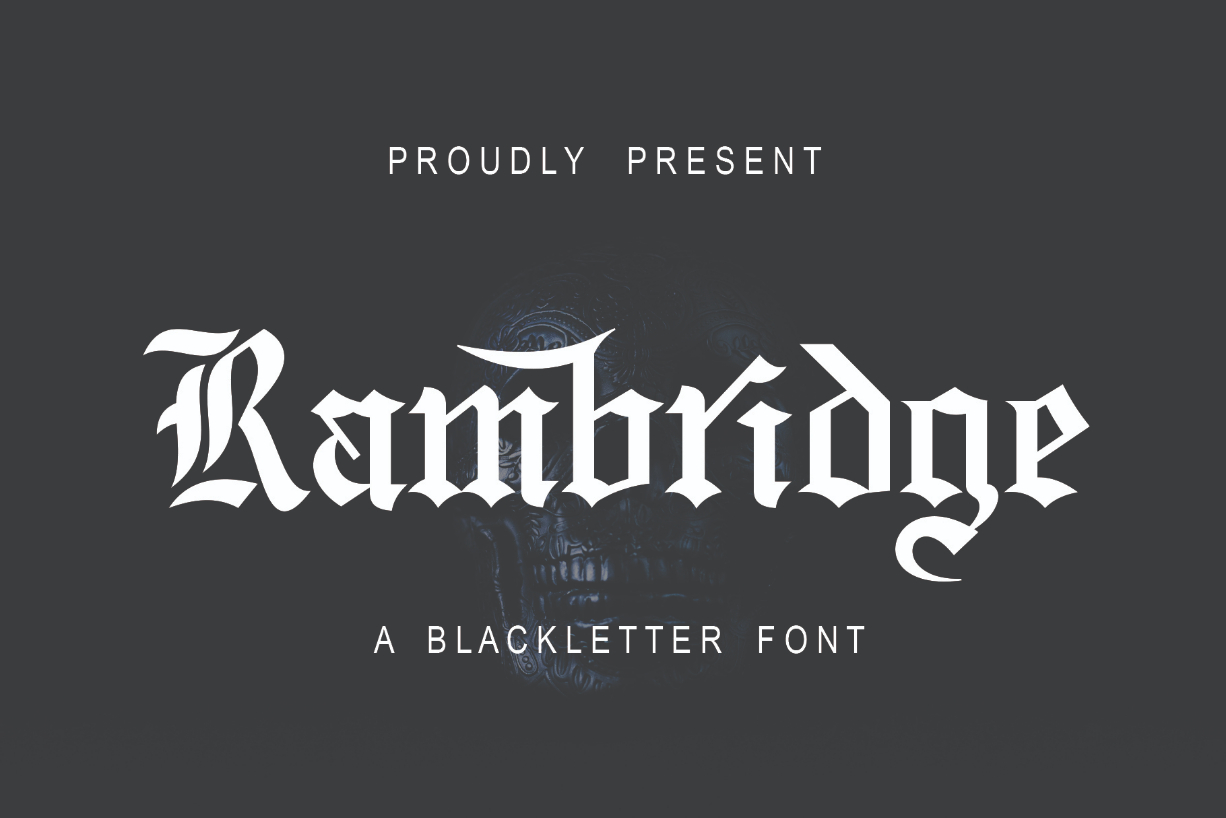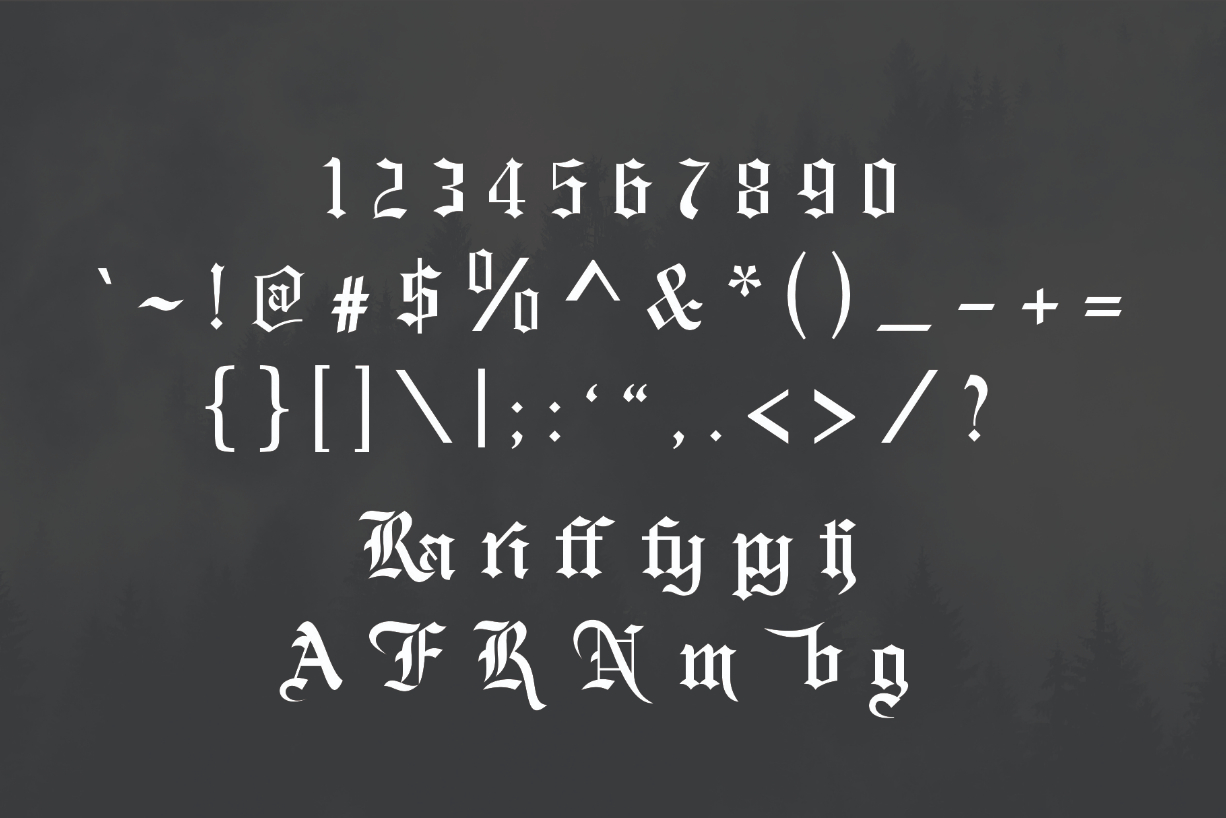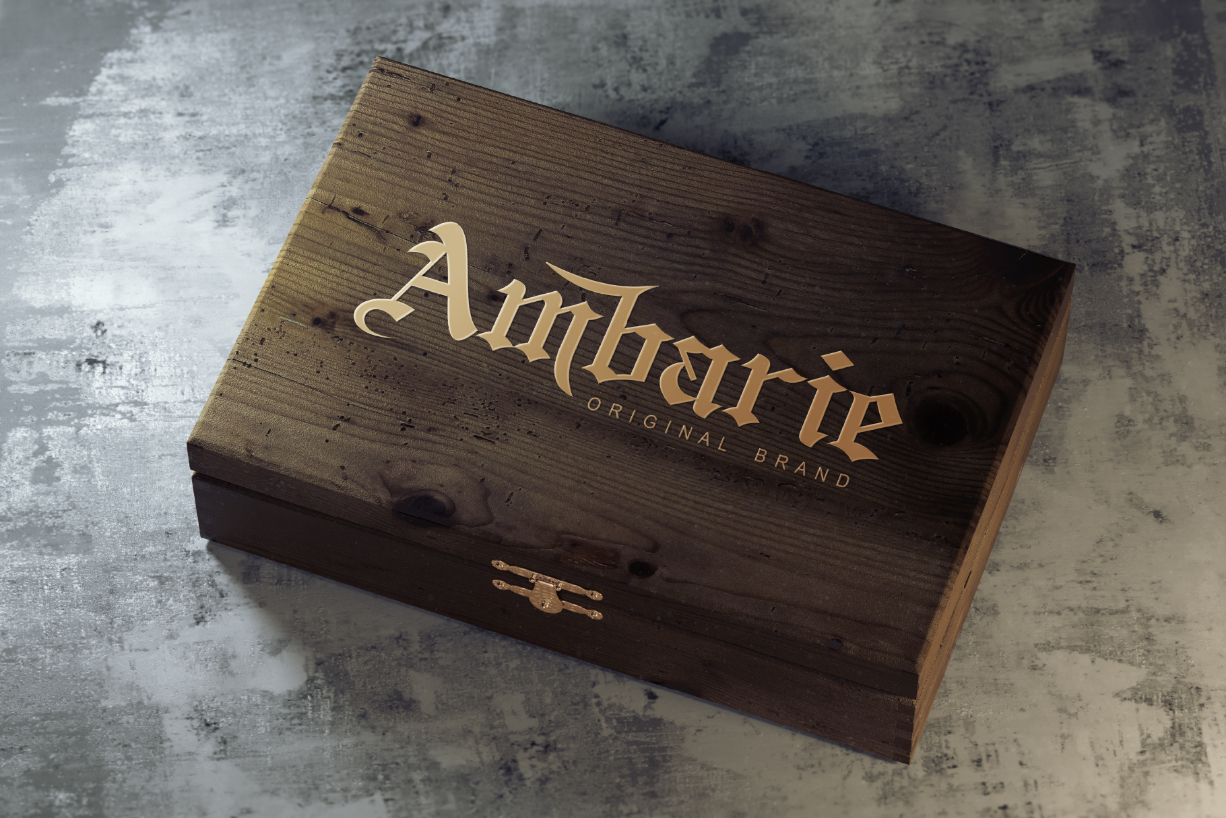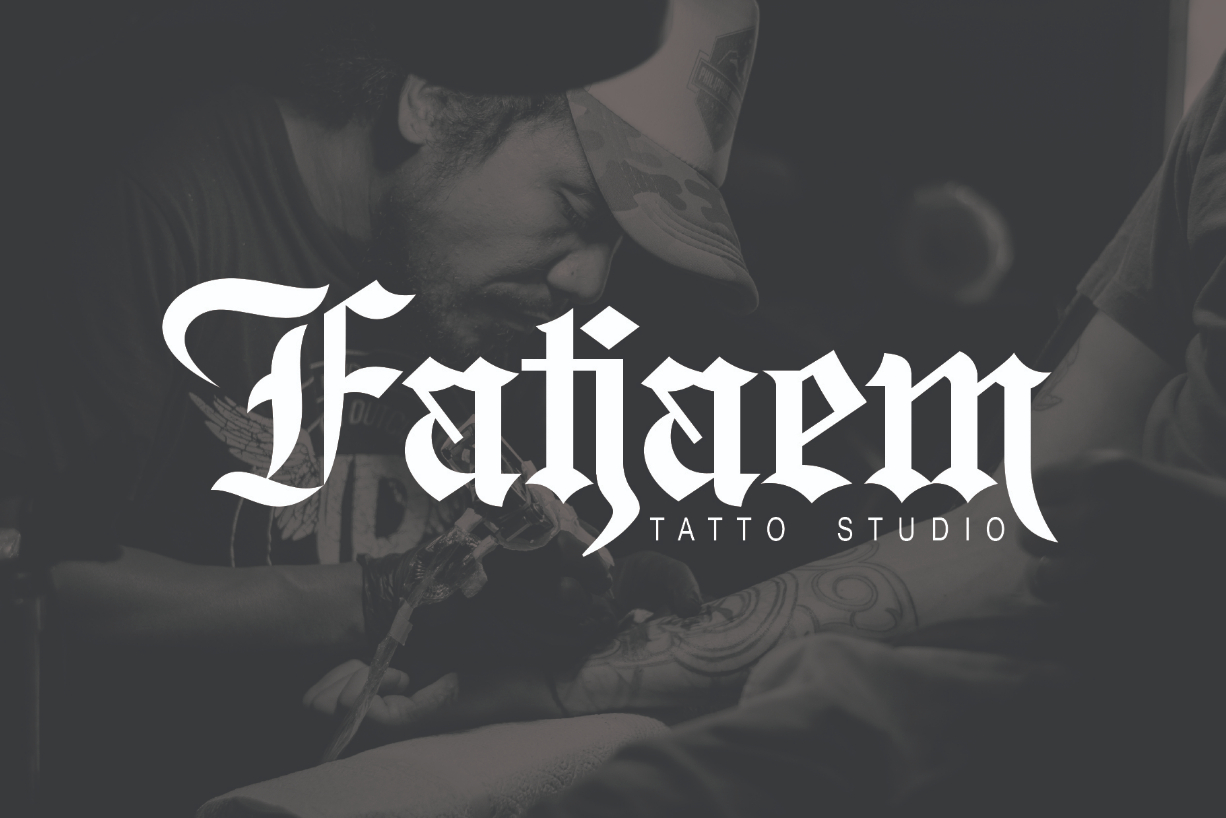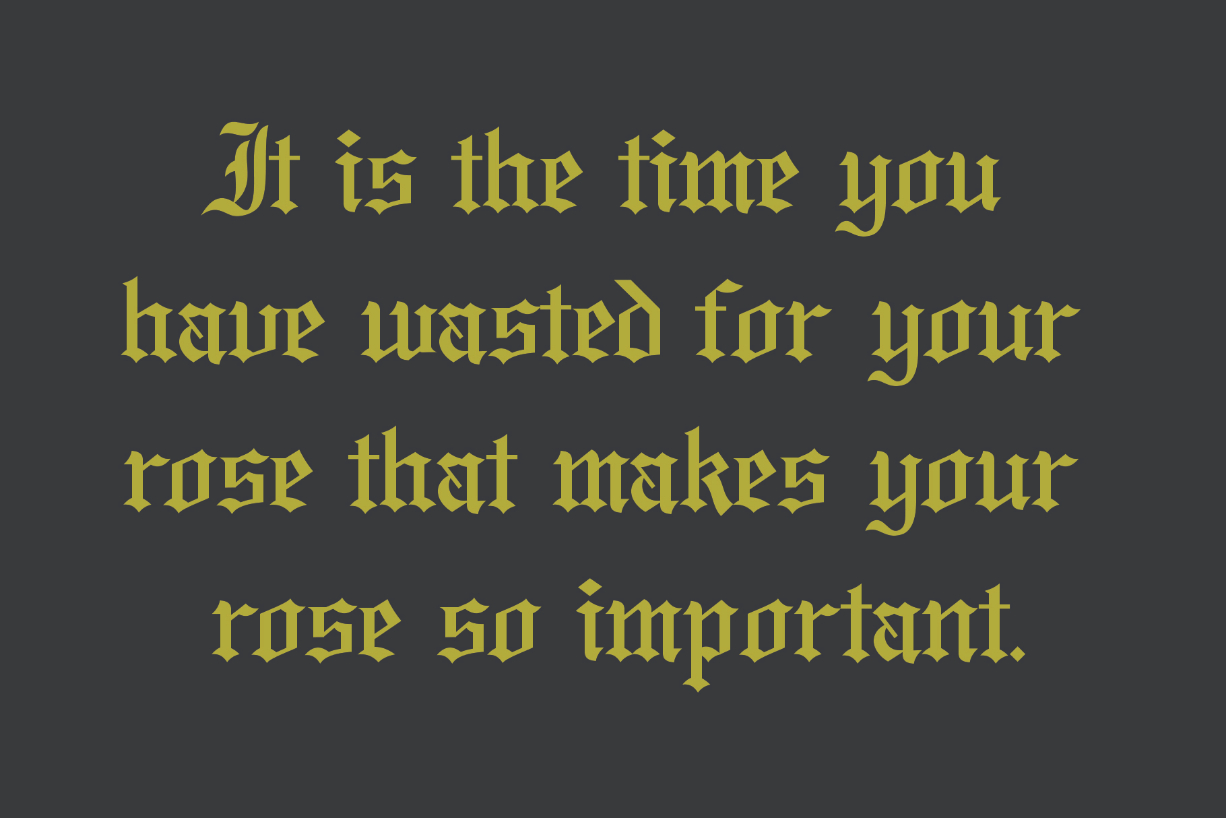
About Rambridge Font
Rambridge is a unique blackletter font. It’s suitable for use in various projects such as gothic letters, tattoos, headlines, posters, magazines, newspapers, t-shirts, labels, and any other designs that you wish to create.